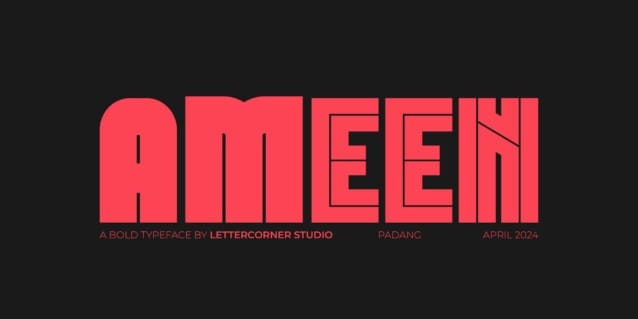
Ameen Font
Ameen Font is a bold, all caps display font featuring the perfect amount of trendiness. Whether you’re using it for crafting, digital designing, presentations or greeting cards making, it’s perfect!